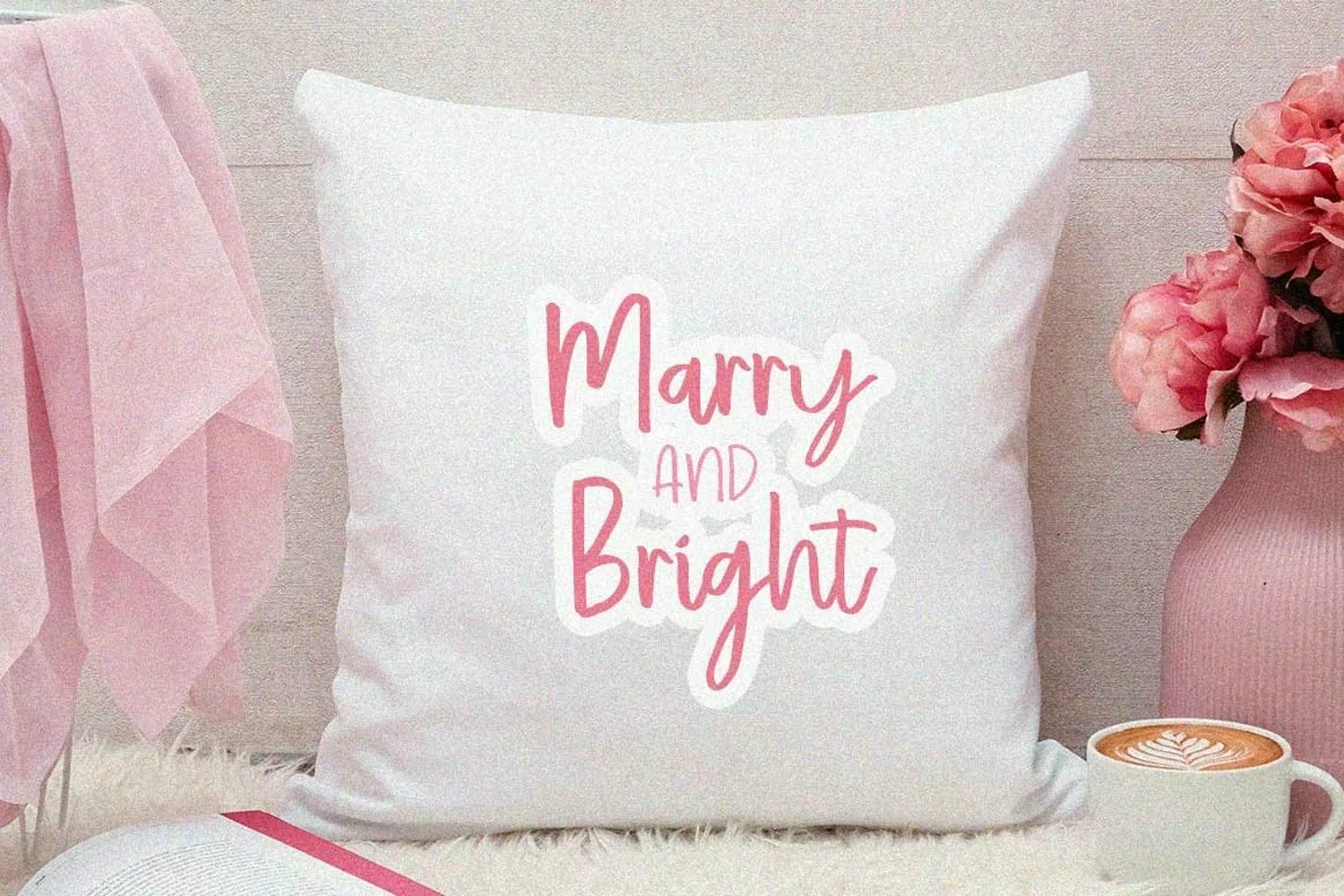
Simply Chic is the latest handwritten font with the theme of love which is perfect for a variety of your next design needs.
You just need to combine upper and lower case letters to get interesting writing text.